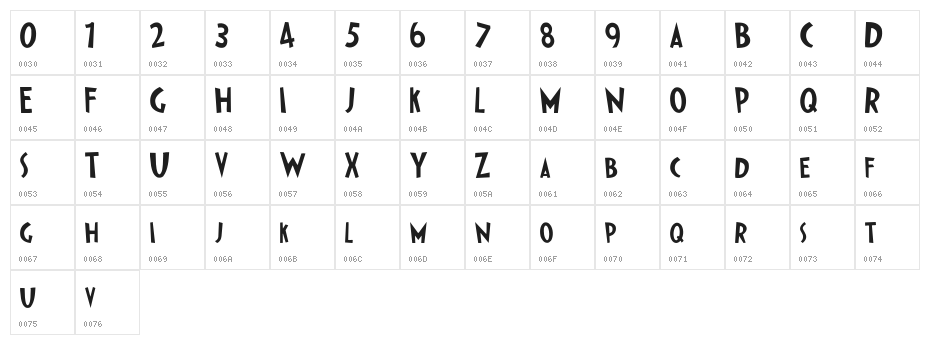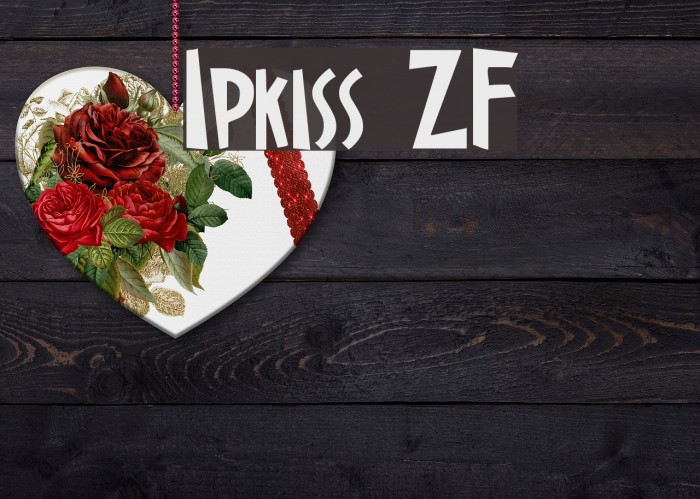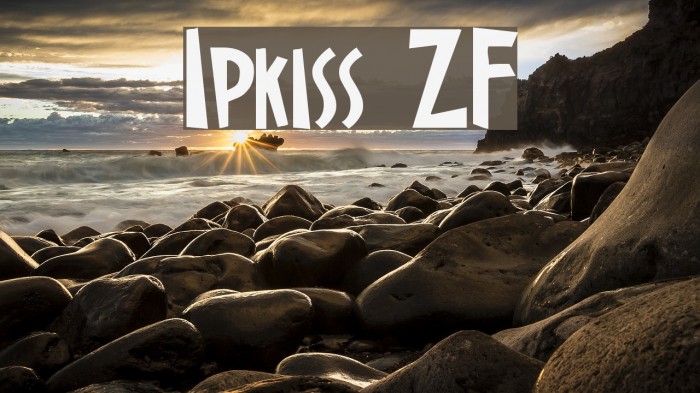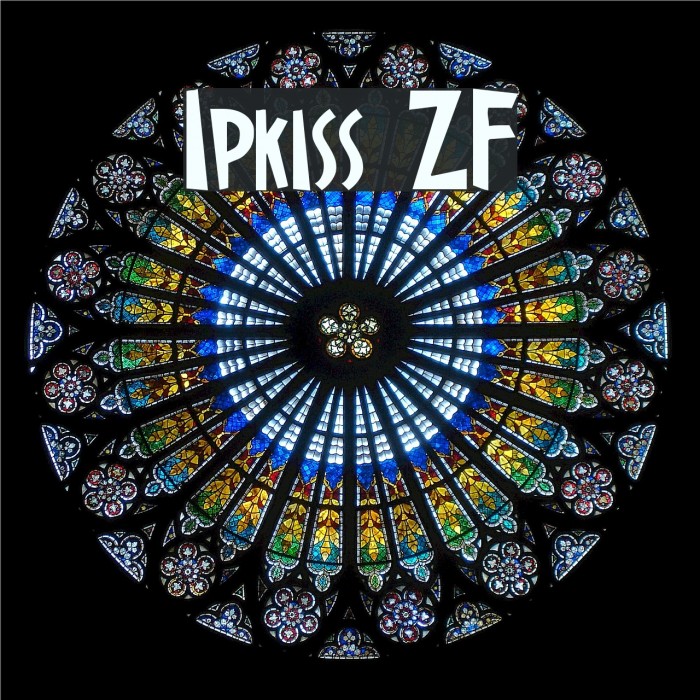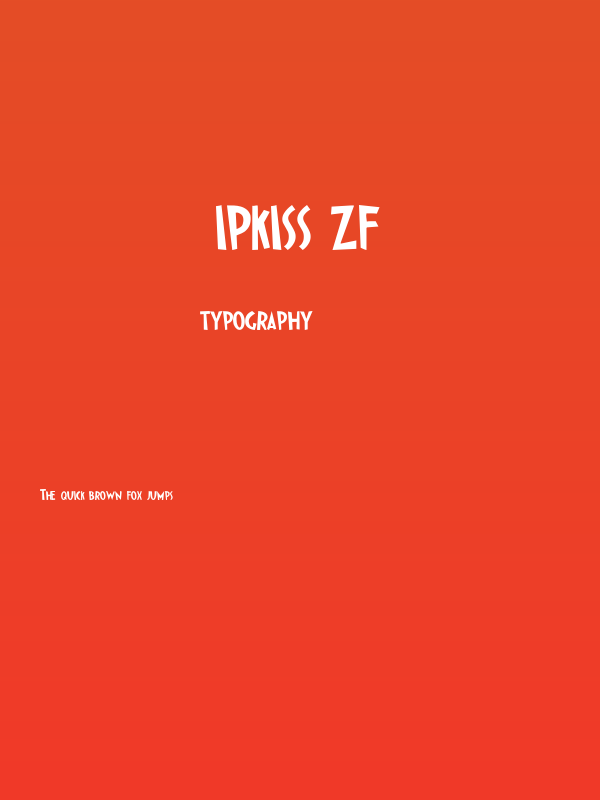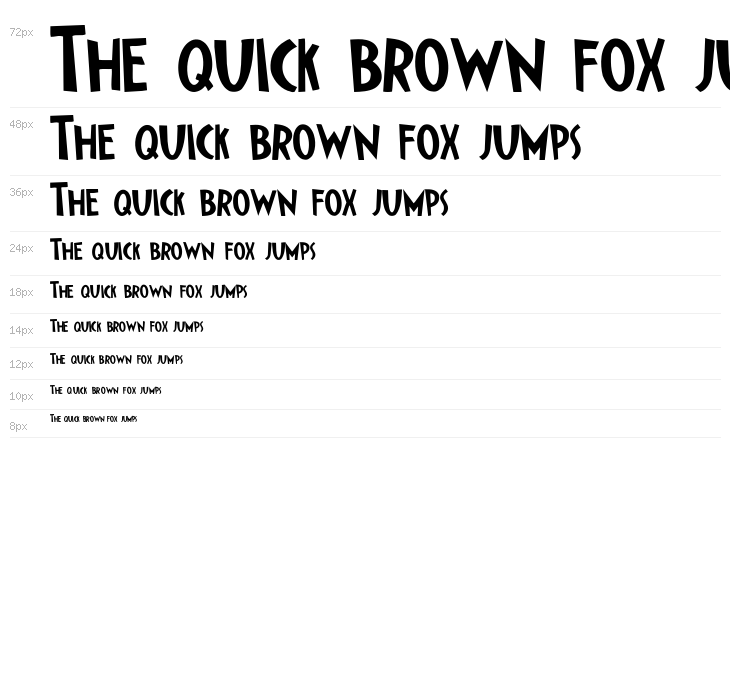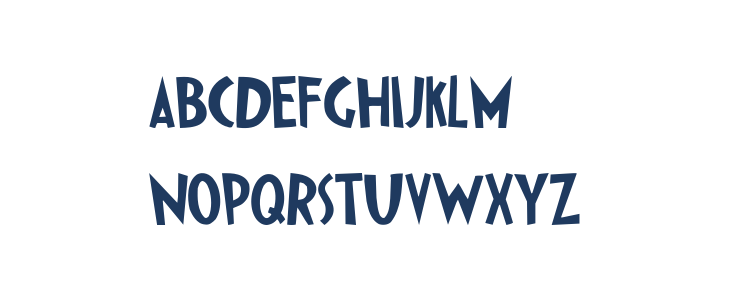
Ipkiss ZF Font
Ipkiss ZF Description
This font features a playful and dynamic style with exaggerated curves and angles, giving it a lively and energetic appearance. The uppercase letters are bold and slightly irregular, adding a sense of movement and fun. The lowercase letters maintain the same playful character, with a consistent stroke width that ensures readability. The numbers are similarly styled, with a quirky and informal look that complements the overall design. This font is perfect for projects that require a touch of whimsy and creativity, making it ideal for children's books, playful branding, or eye-catching headlines.
| Overall Style | Playful, Energetic, Quirky |
| Use Case | Headlines, Branding, Posters |
| Proposed Projects | Children's books, playful branding, eye-catching headlines, creative posters. |